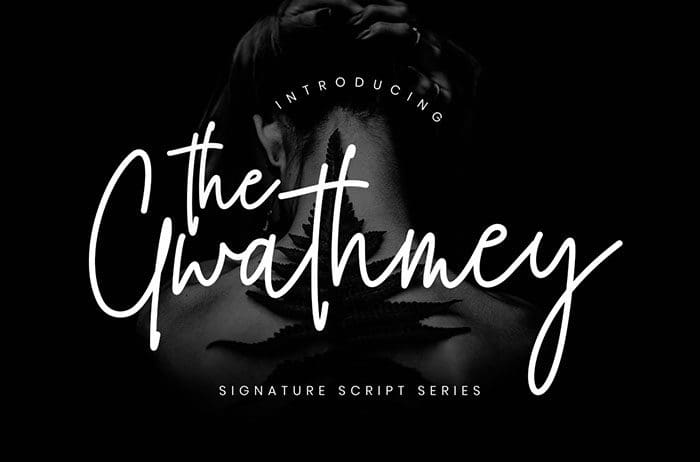
Gwathmey Script Font
The Gwathmey is an elegant script font which purely a result of handwriting and has a natural characteristic that designed for all kinds of stylish projects. Thanks to Creatype Studio for sharing this font! Take a look at this portfolio for more of his stunning fonts.